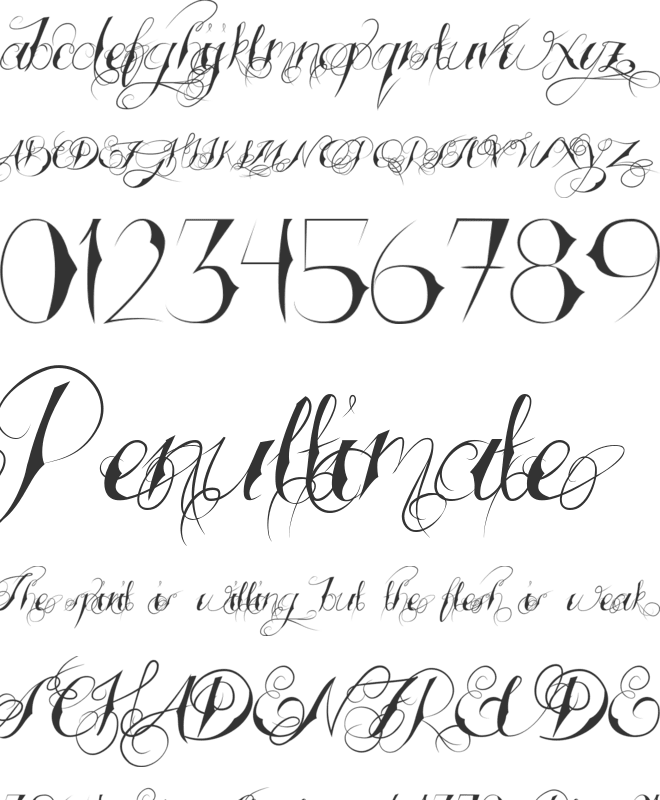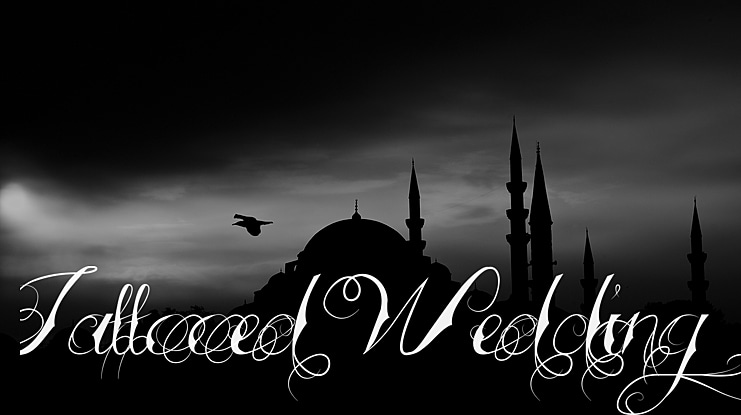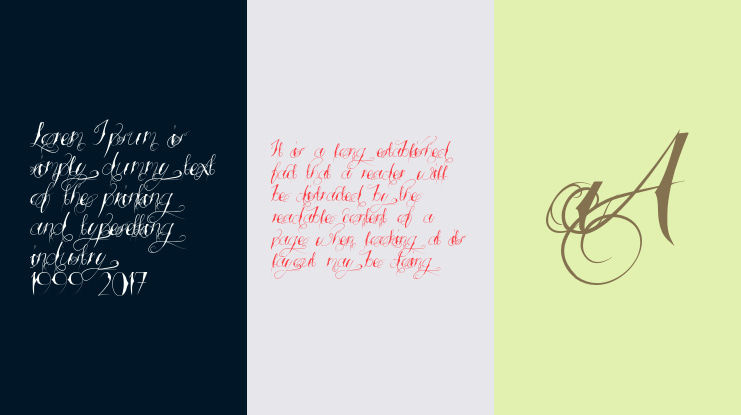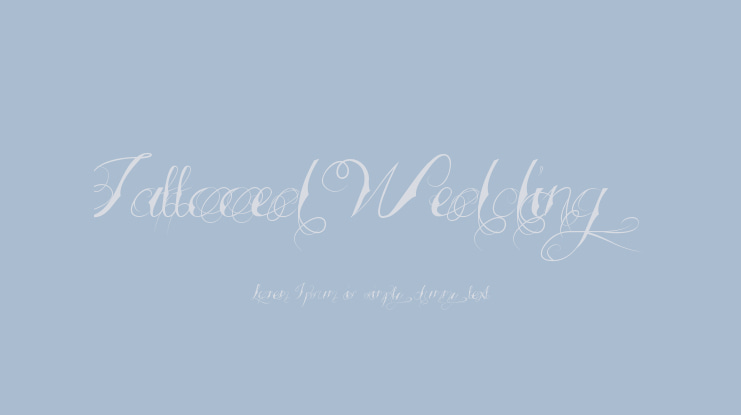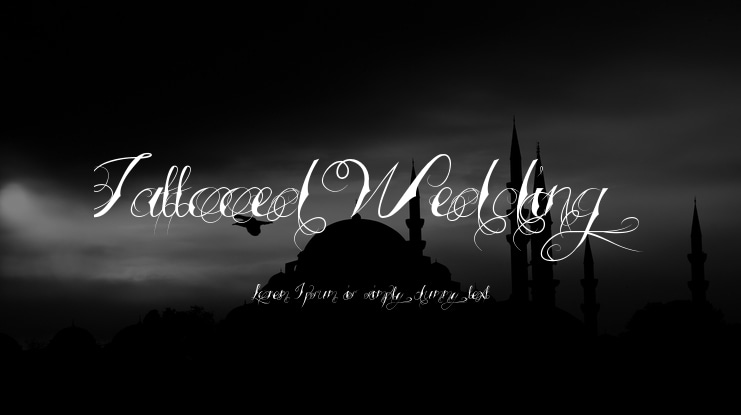
Tattooed Wedding Font
Emerging from the current trend of the hand made, retro and pastiche. Tattooed Wedding comes together at the point where tattoo culture meets the resurgence of ornamantal letteing. The Typeface is a hand scripted, decorative, illustrative style more suited to Headdings, logo designs and signwriting rather than body text.